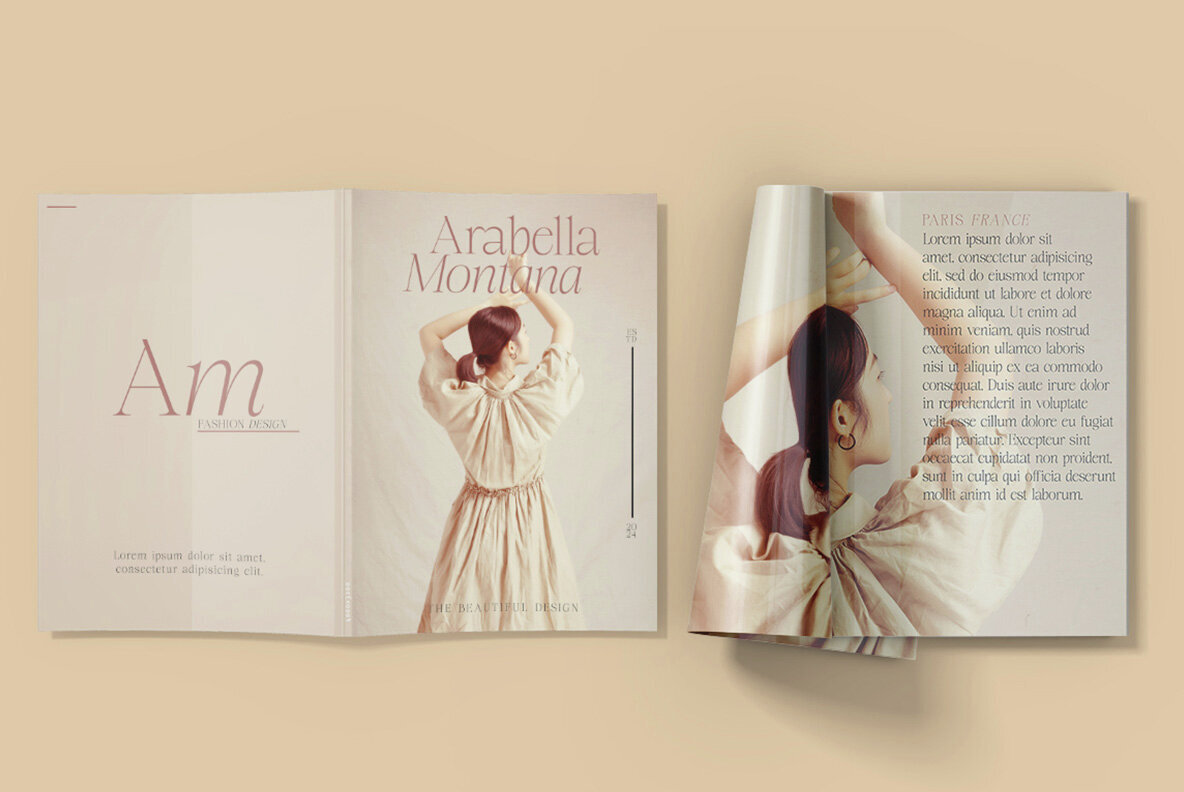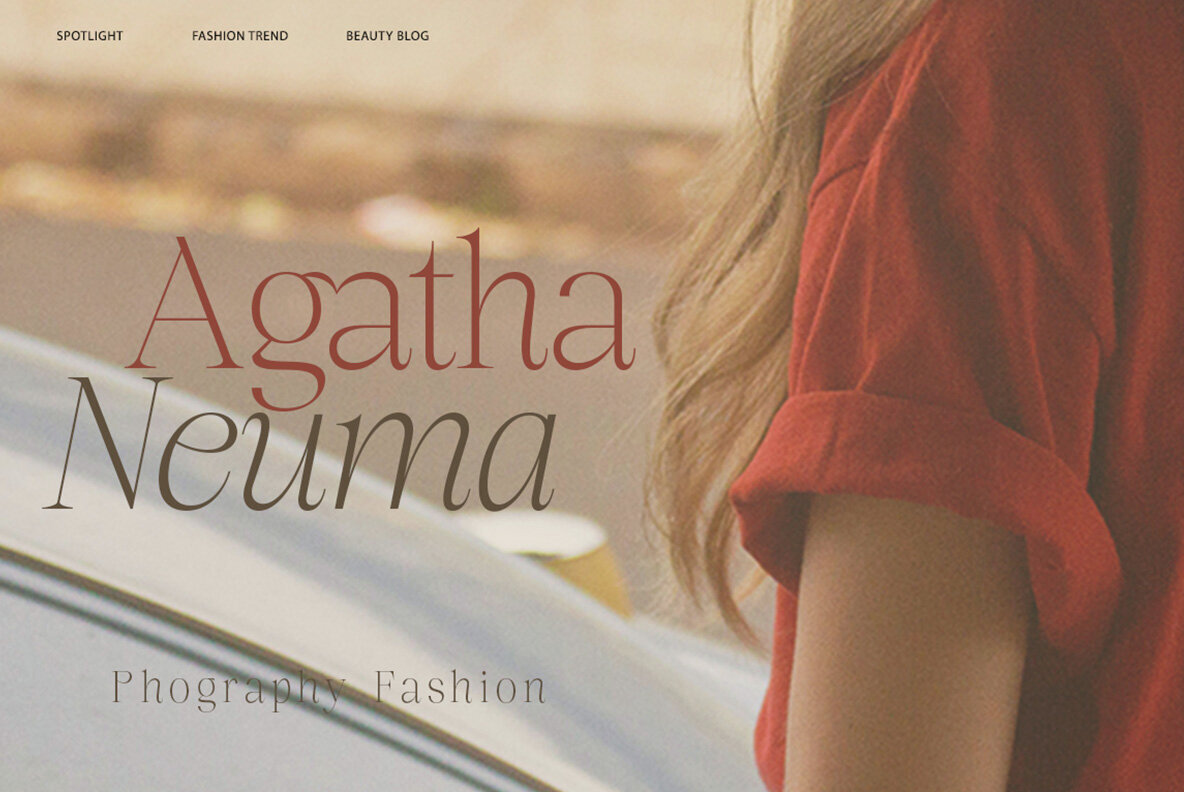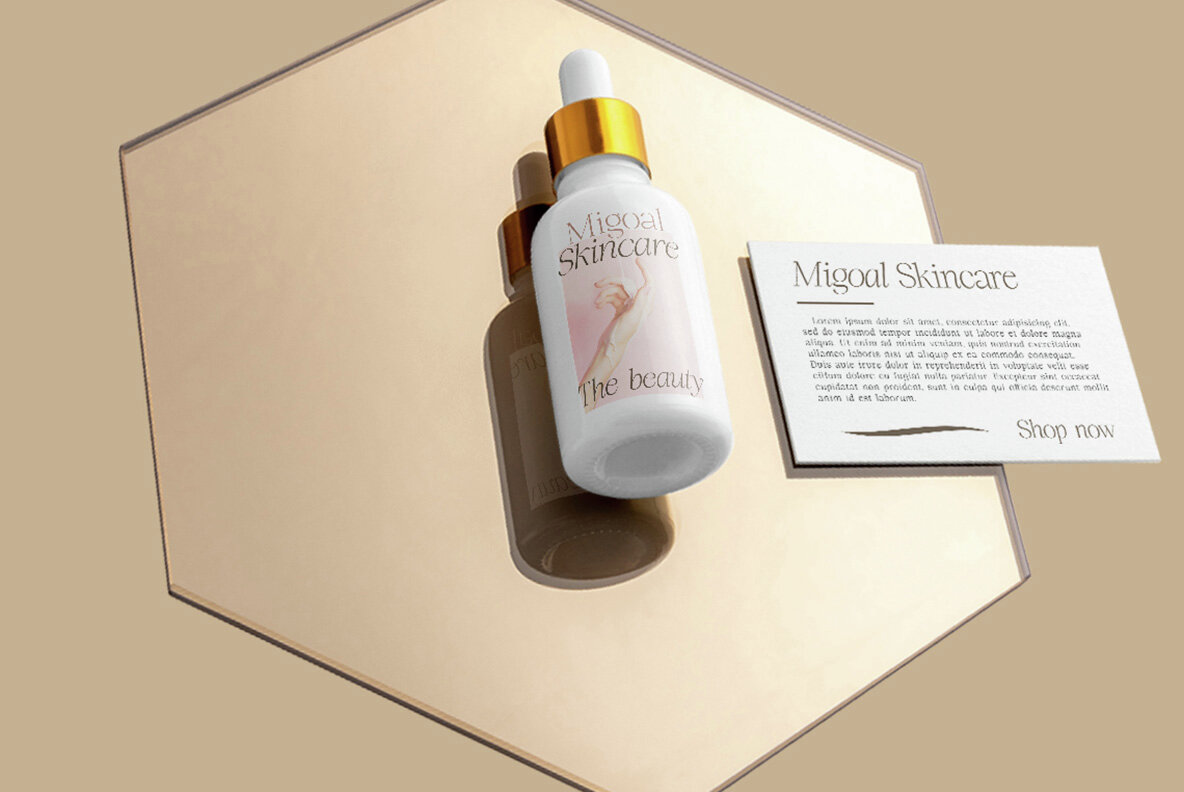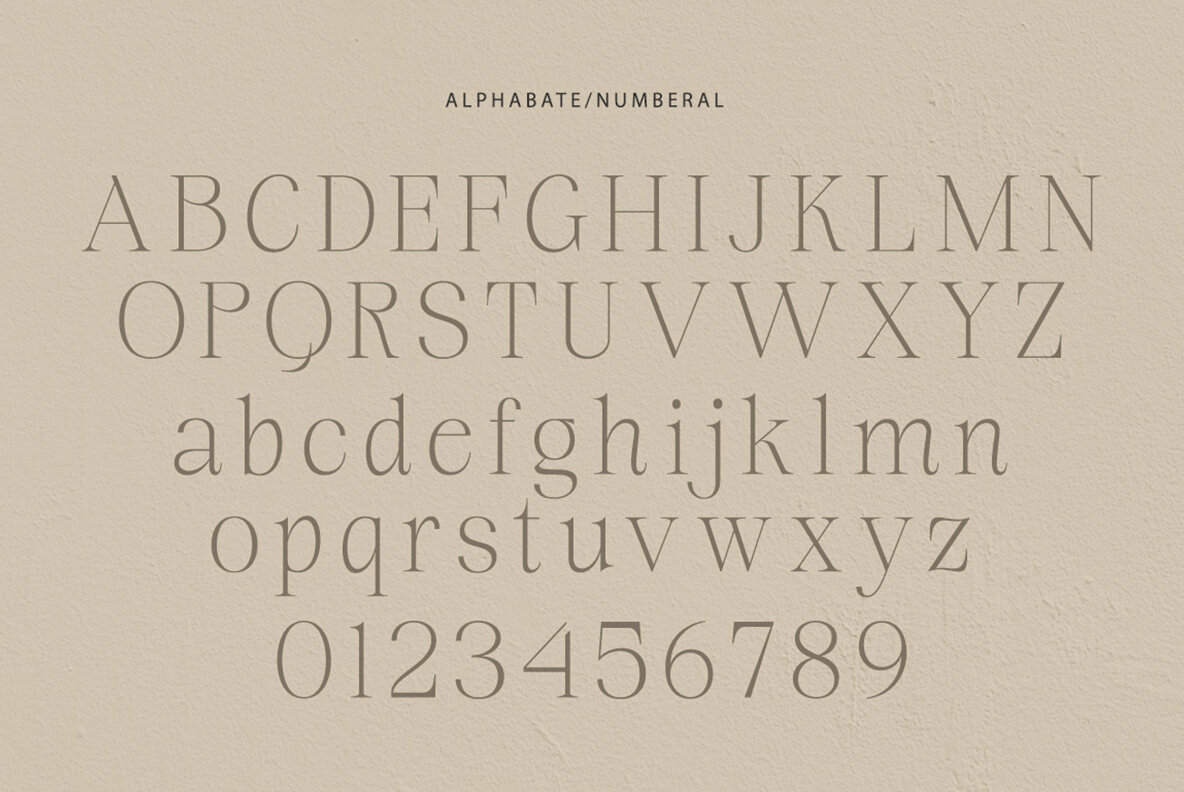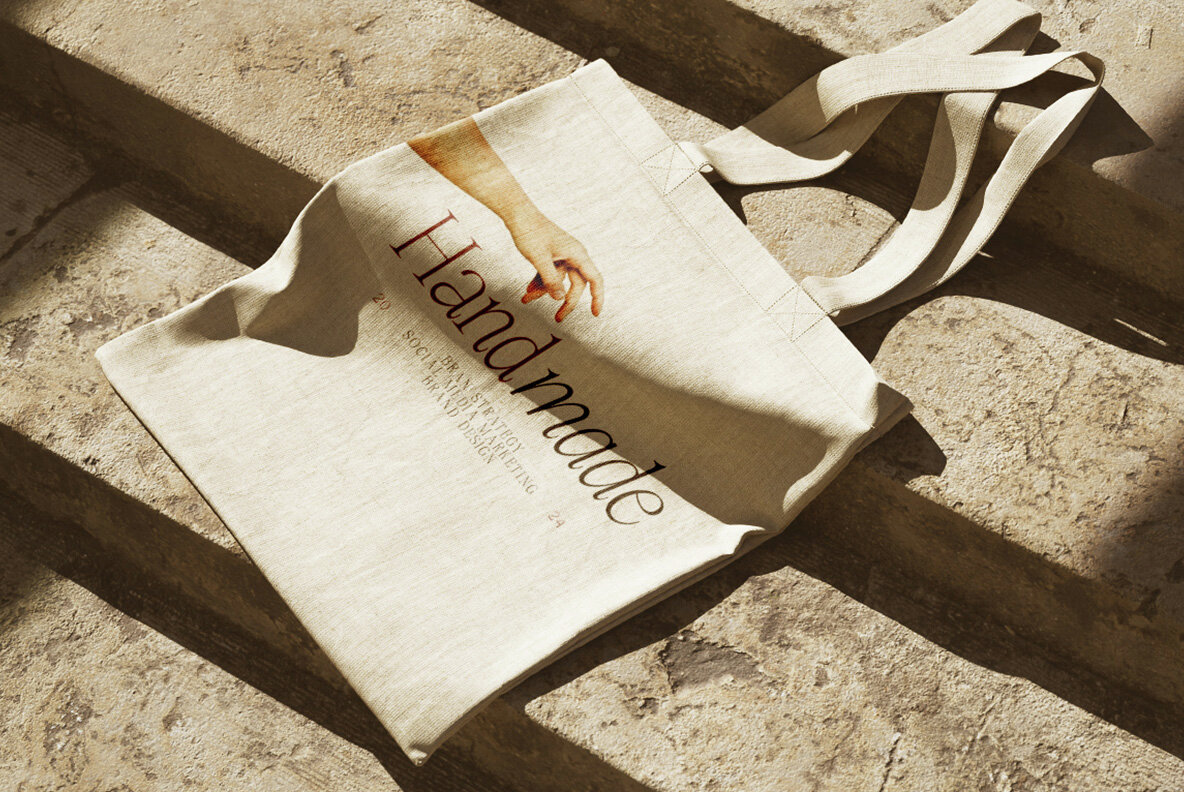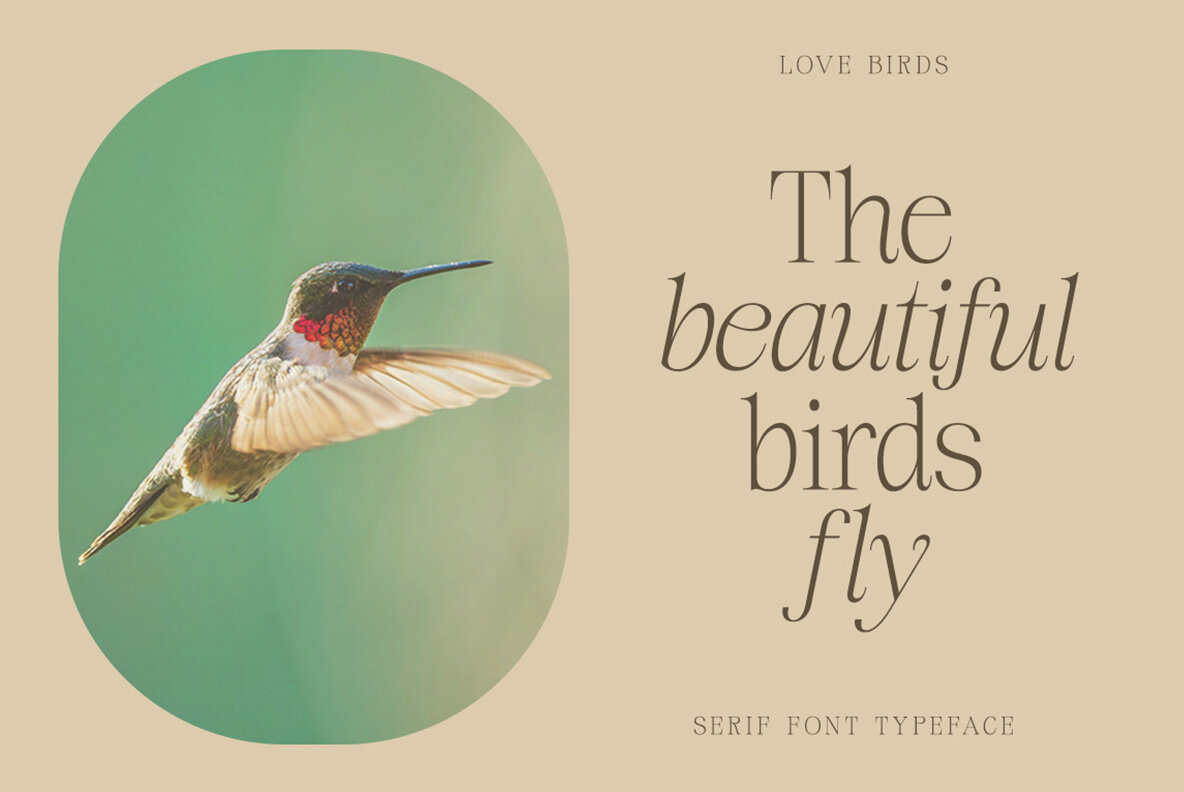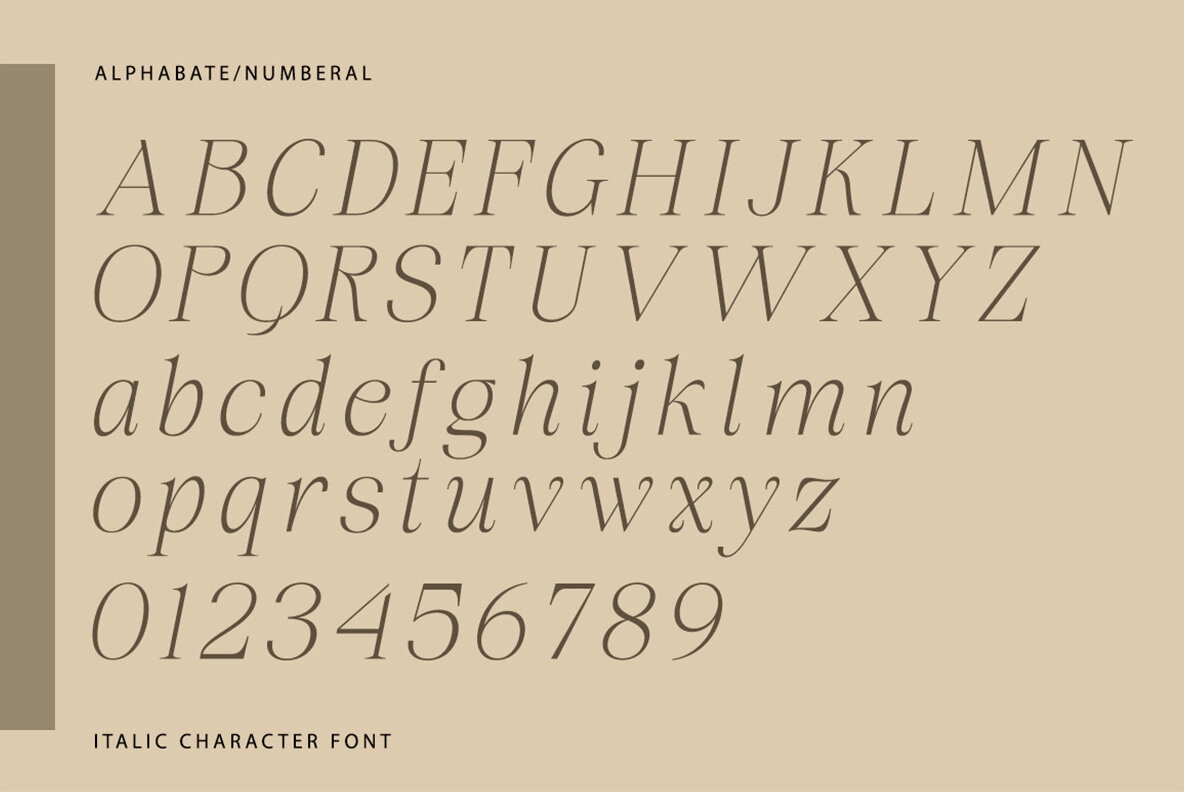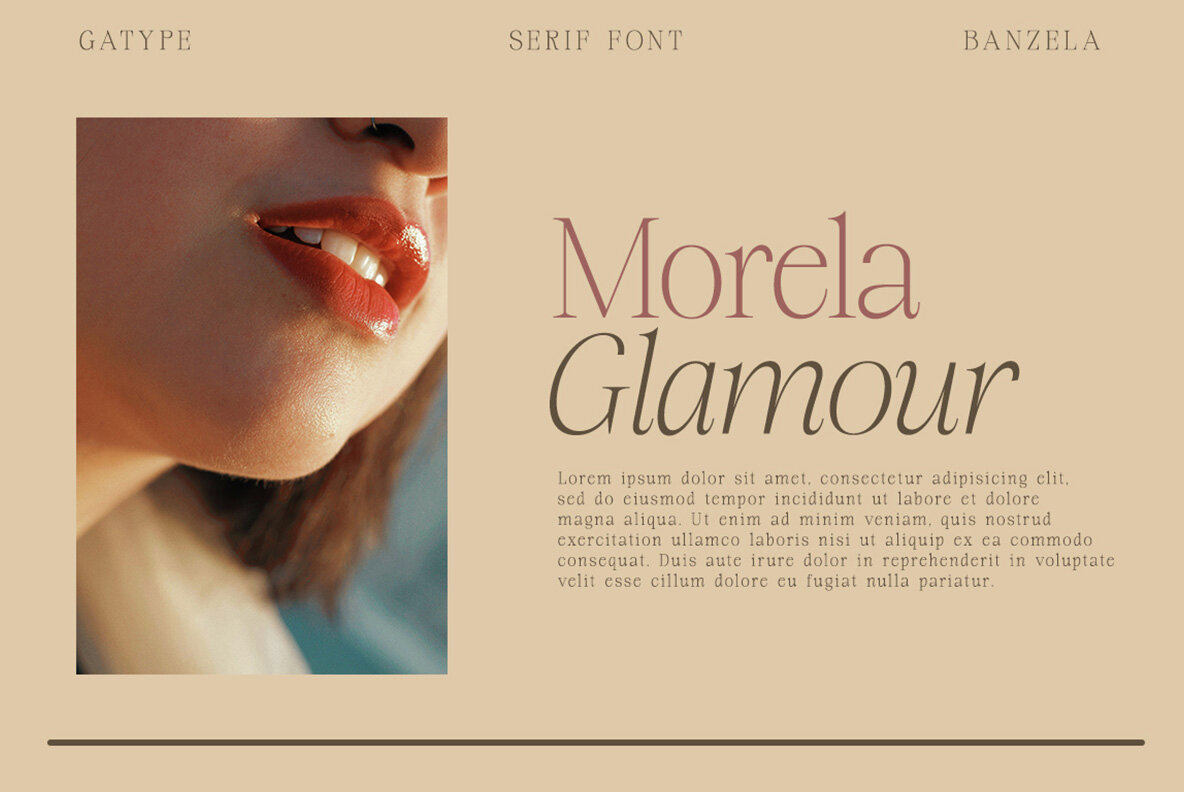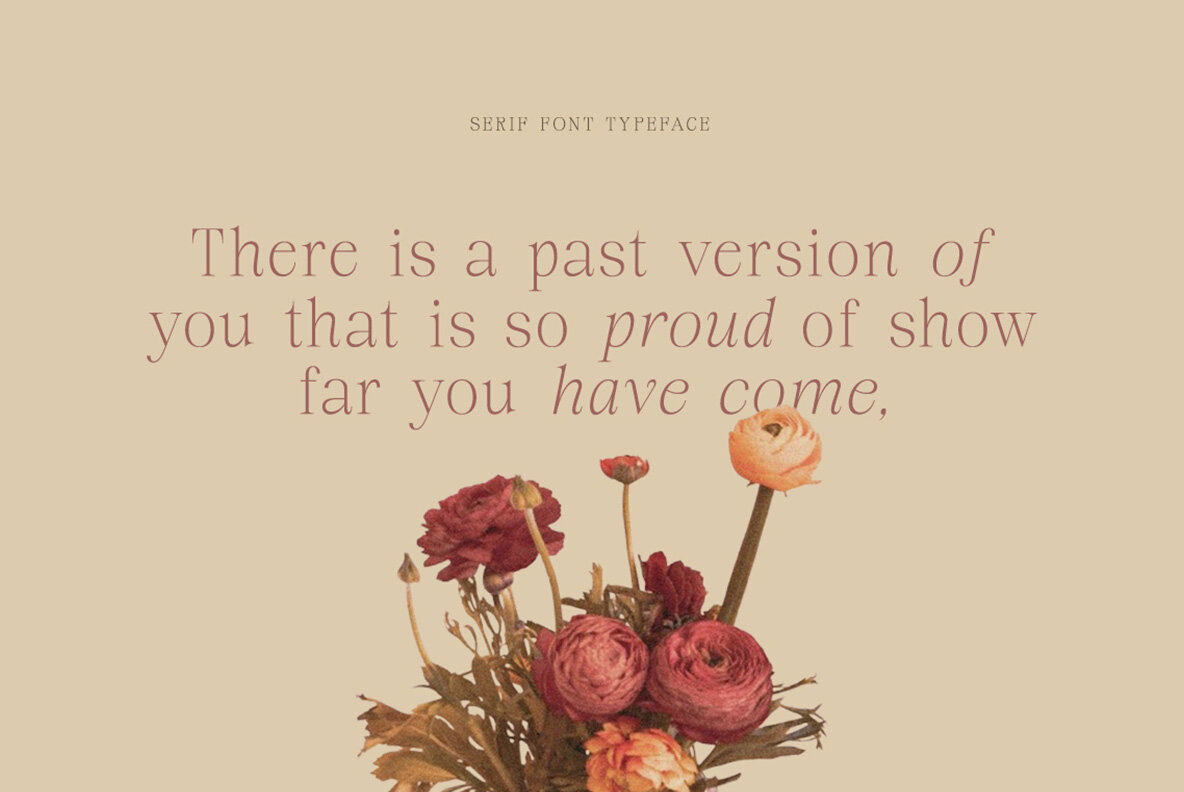
Banzela Font
Banzela is a serif typeface known for its classic elegance and refined style. It features varying thicknesses within each letter, providing visual depth that enhances readability. The smooth yet bold lines of this typeface naturally attract attention, making it perfect for projects that aim for a premium appearance. This font is often utilized in designs where a formal or luxurious ambiance is desired, adding sophistication to any composition.
Ideal for headlines, logos, and branding, Banzela brings a timeless touch to your designs. Its ability to convey a formal and antique atmosphere makes it suitable for projects requiring a classic flair. Whether used in high-end branding or elegant editorial layouts, Banzela offers versatility and style that meets the demands of sophisticated design challenges.